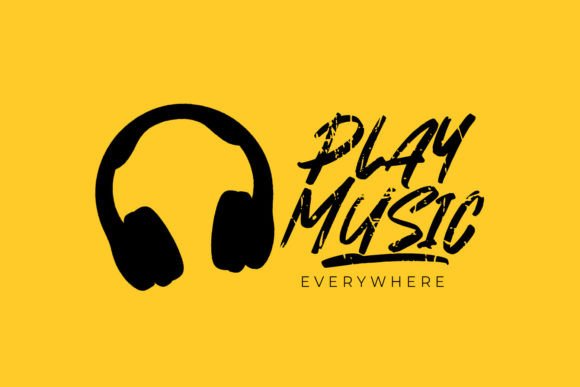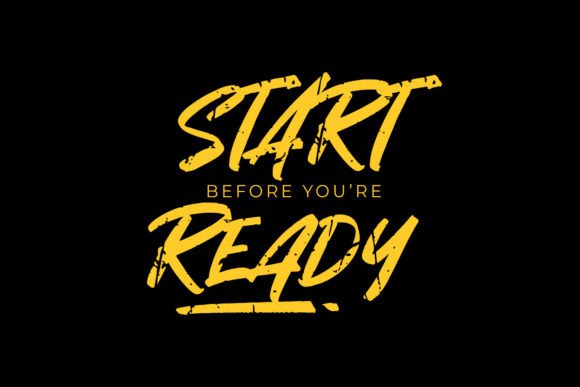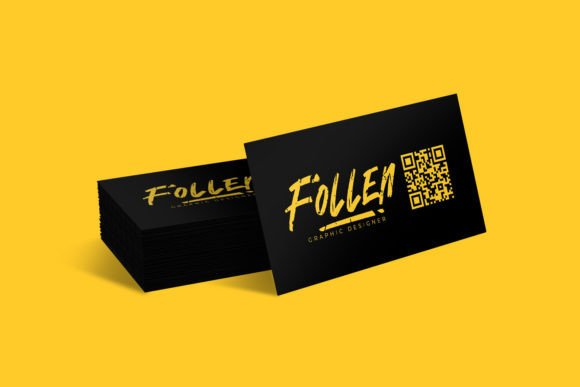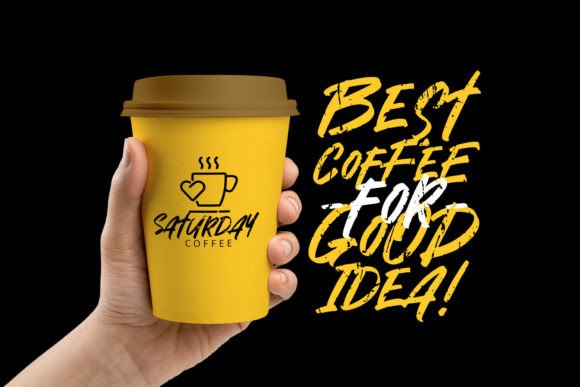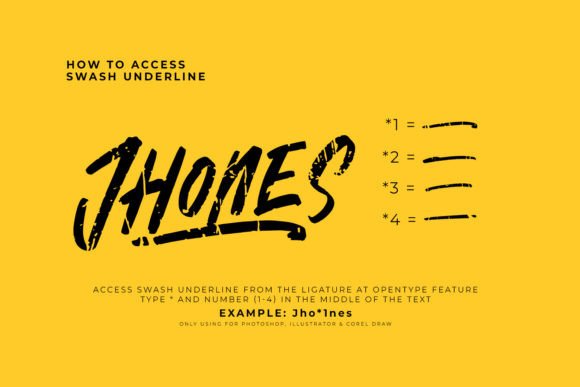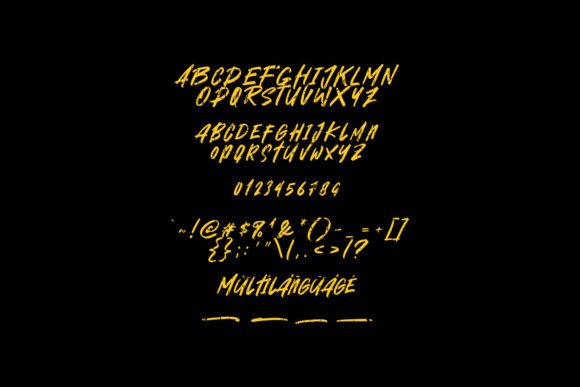
Introduction to Rowdex Font
Have you ever stared at a blank page, trying to find the perfect font to bring your creative project to life? You’ve spent hours browsing through font libraries, but nothing seems to capture the essence of your vision. That’s where the Rowdex Font comes in – a modern bold brush font that’s guaranteed to make your designs stand out.
Whether you’re working on a poster, logo, magazine, book cover, or banner, the Rowdex Font is the perfect design resource to elevate your creative ideas. Its quirky handwritten style adds a touch of personality to any project, making it a valuable asset for designers looking to add some flair to their work.
Key Features of Rowdex Font
- Unique characteristics include a modern, minimalist aesthetic and a wide range of language support.
- Perfect for use in graphic design, digital art, and other creative projects where a high-quality font is required.
Honest Review: Rowdex Font
I recently had the opportunity to work with the Rowdex Font for a creative project, and I must say it’s been a great addition to my design resource library.
Here’s what works well: ✨ The font is super versatile and can be used for a wide range of designs, from logos to print materials. I also appreciate the fact that it’s a free download, which makes it accessible to designers of all levels. The high quality of the font is evident, with smooth lines and a professional finish.
Another advantage is that the font has a transparent background, making it easy to use on any design element without worrying about it clashing with other colors.
Now, here’s what I’d like to see improved: ⚠️ The font family is a bit limited, with only a few weights and styles available. This can make it difficult to achieve the exact look you want, especially for more complex designs.
Overall, I’m quite impressed with the Rowdex Font. It’s a solid addition to any designer’s library, and I’d definitely recommend it for creative projects where a high-quality, versatile font is needed.
- High quality and smooth lines
- Wide range of design applications
Introduction to Rowdex Font
Rowdex Font is a high-quality design resource ideal for creative projects. This versatile font offers a transparent background, making it perfect for overlaying on images or using as a standalone element.
Tips for Getting the Most Out of Rowdex Font
Experiment with different font sizes, colors, and layer settings to achieve unique effects. You can also use the Rowdex Font in combination with other design elements to create visually appealing graphics.
The Rowdex Font is ideal for a variety of creative projects, including graphic design, branding, and digital art. It’s also perfect for creating social media graphics, presentations, and marketing materials.